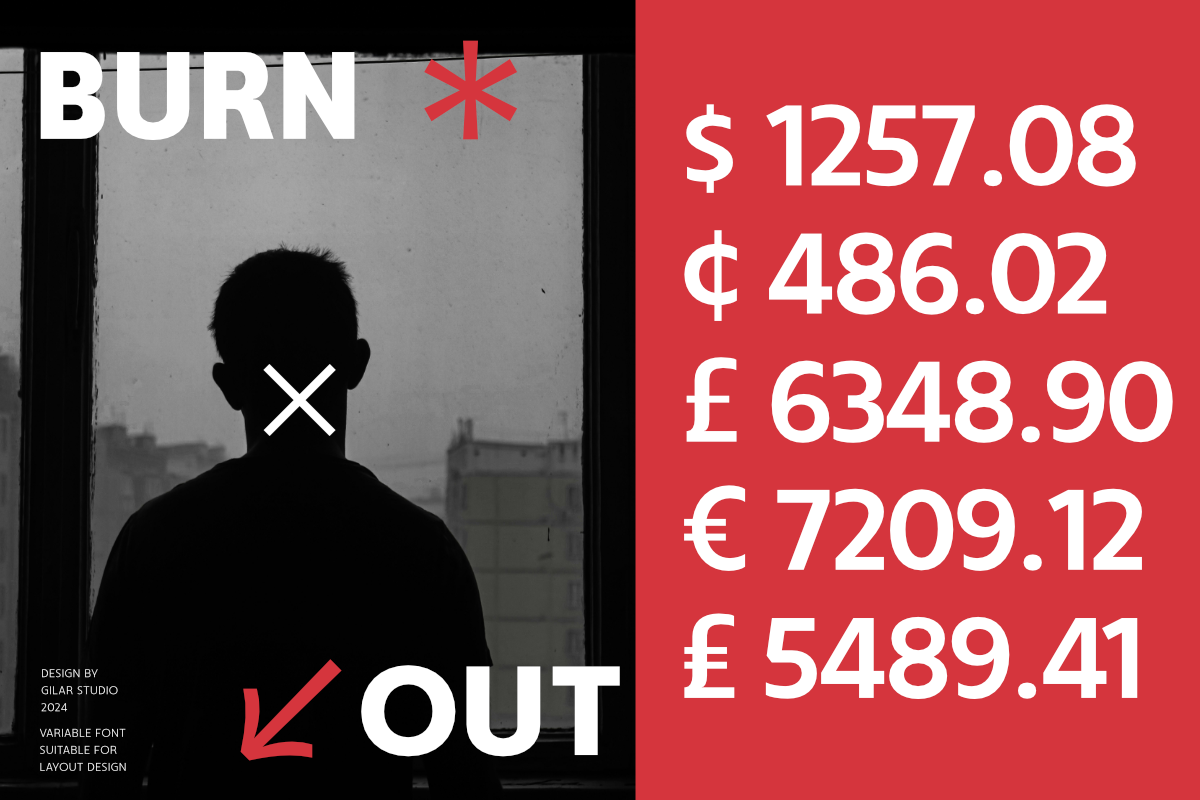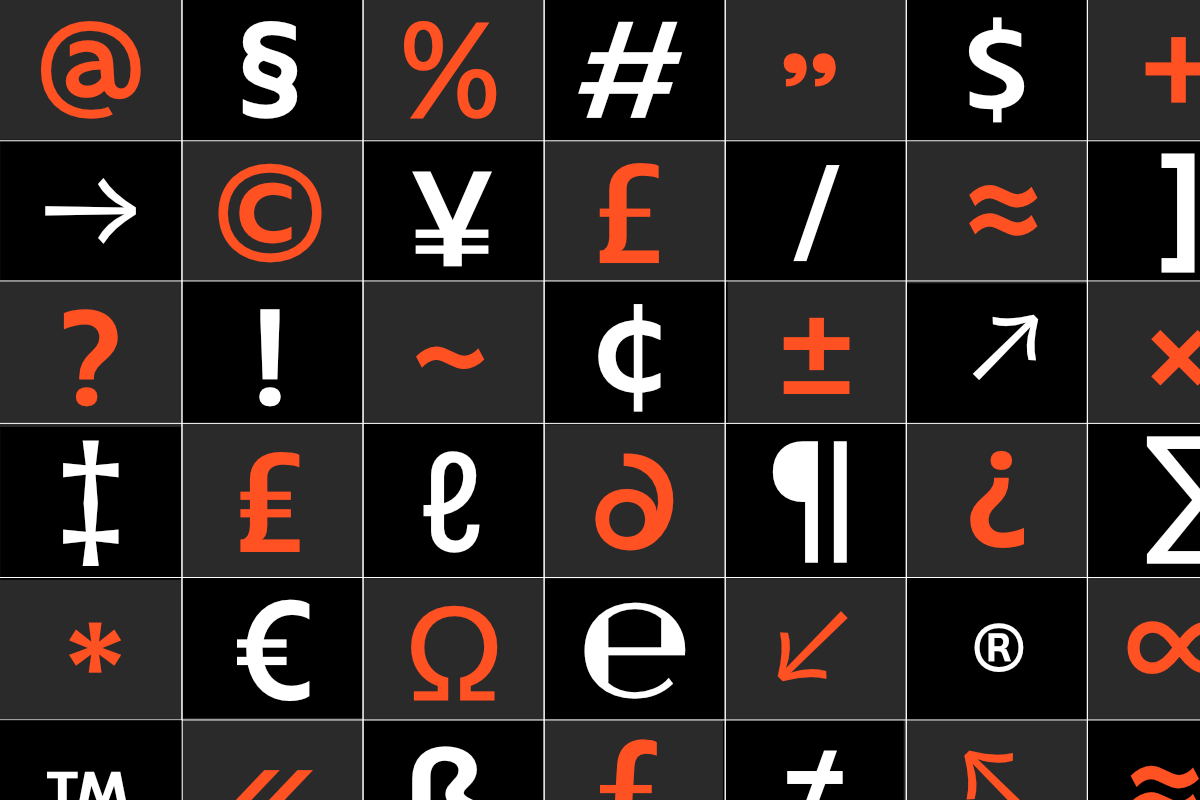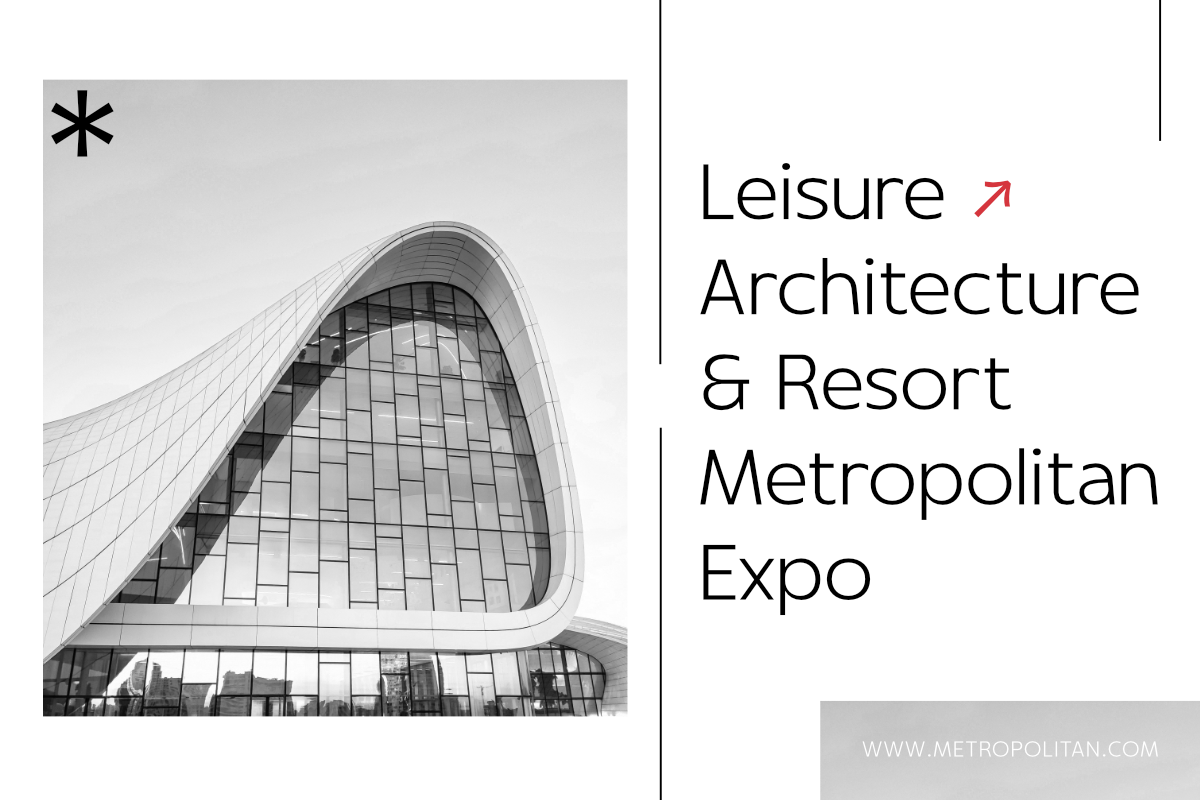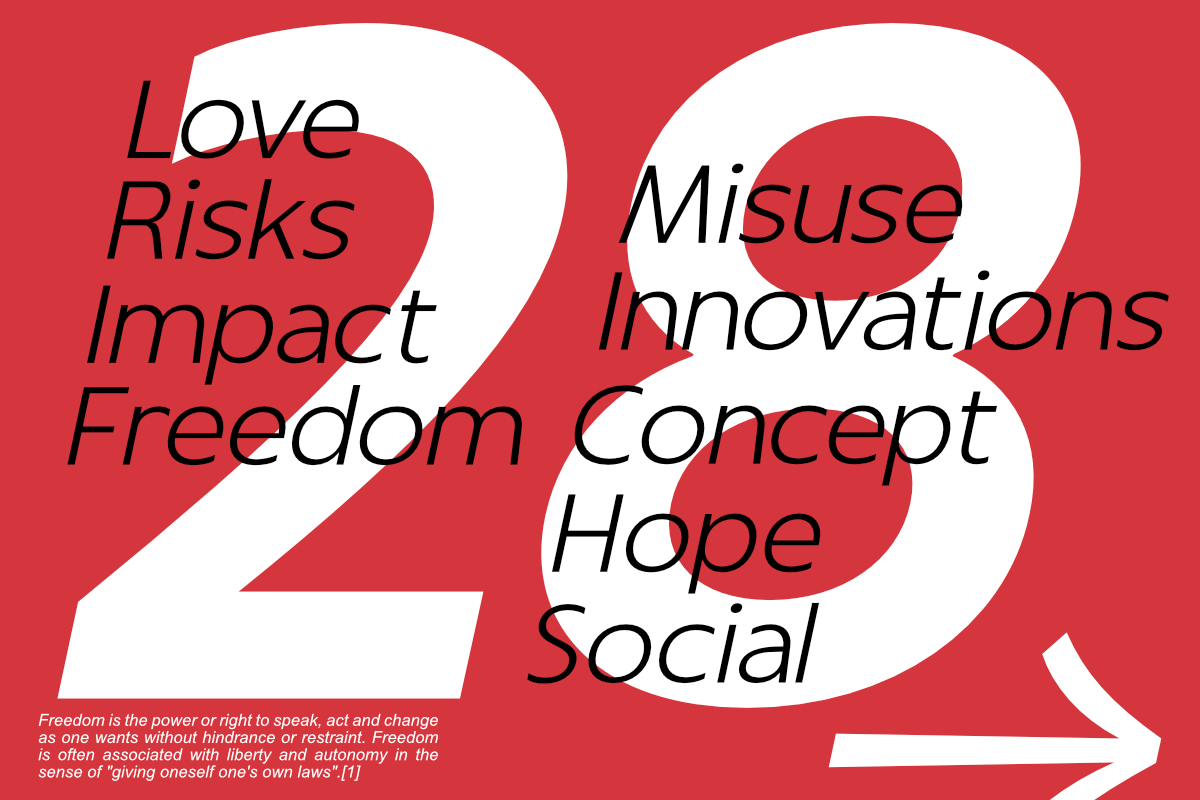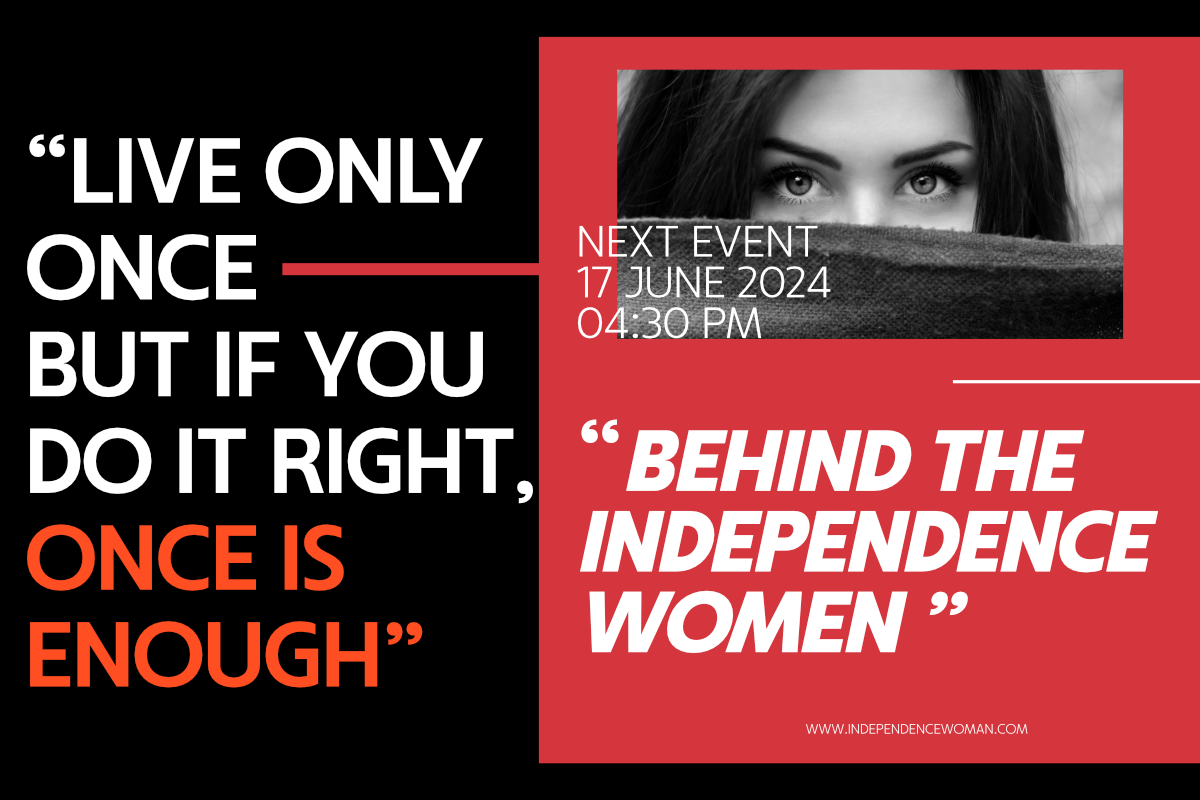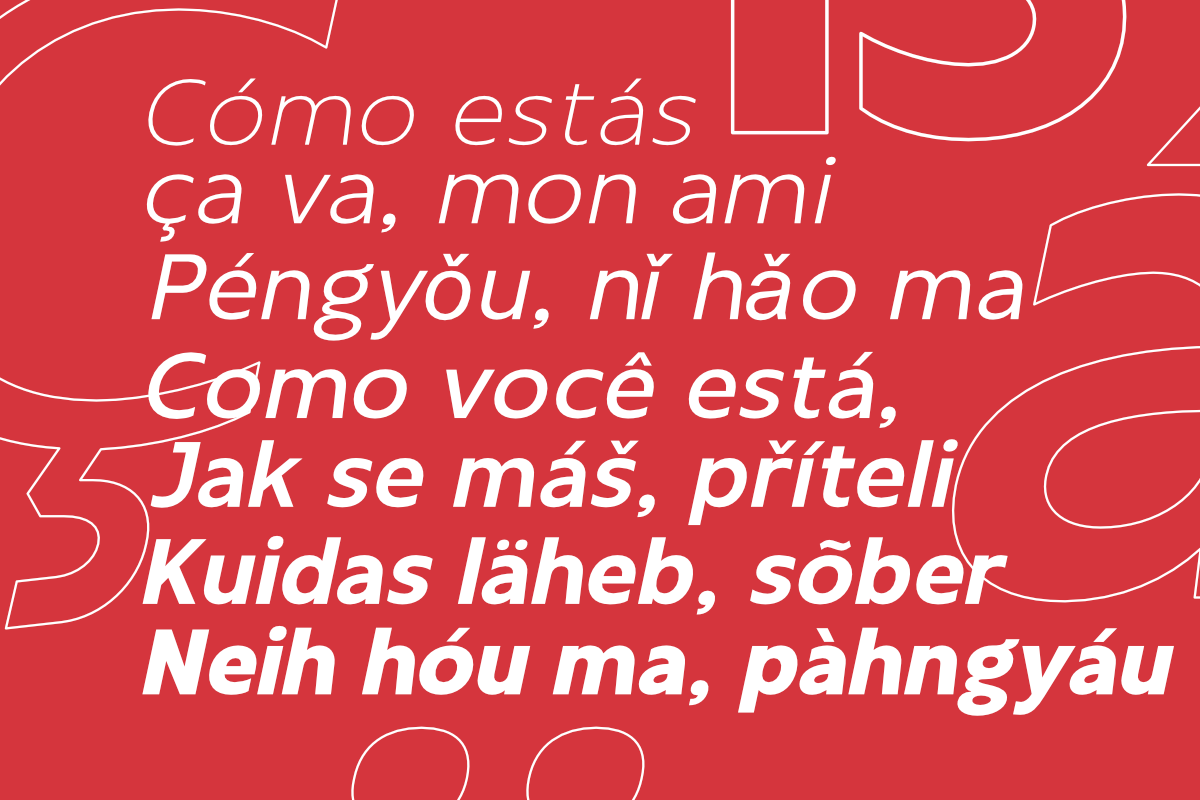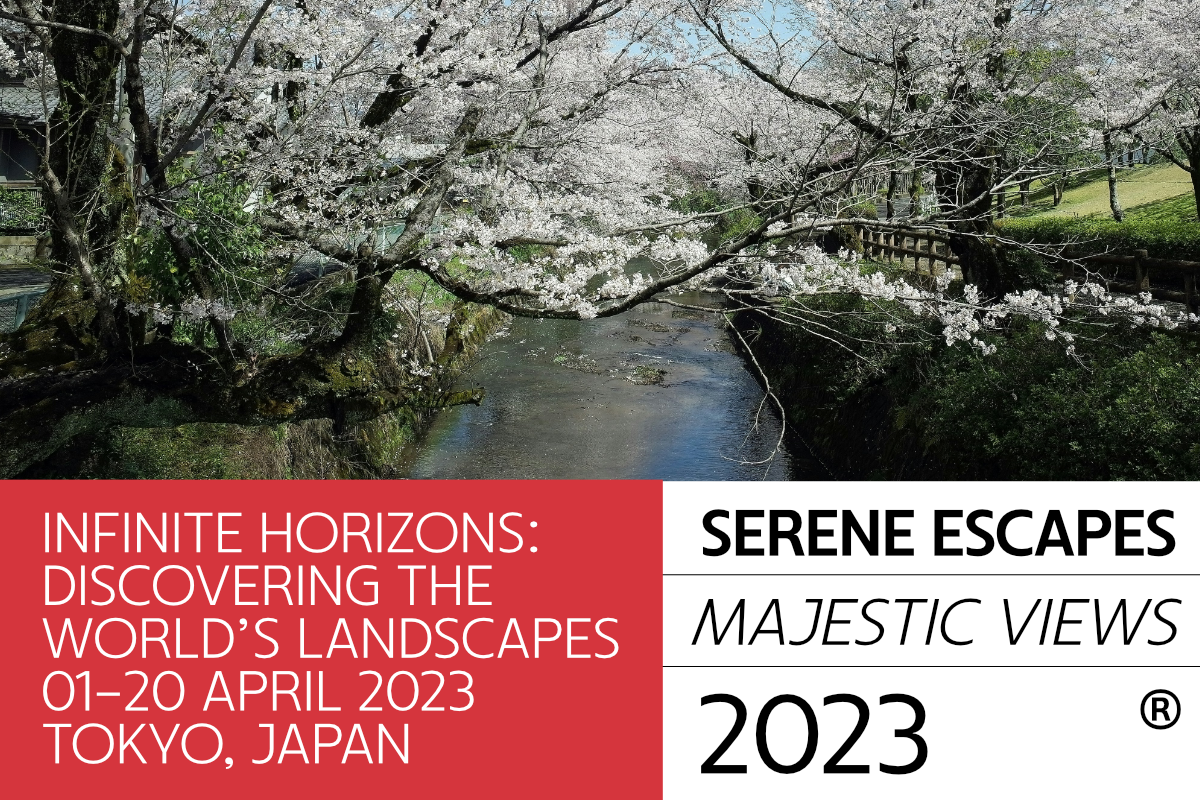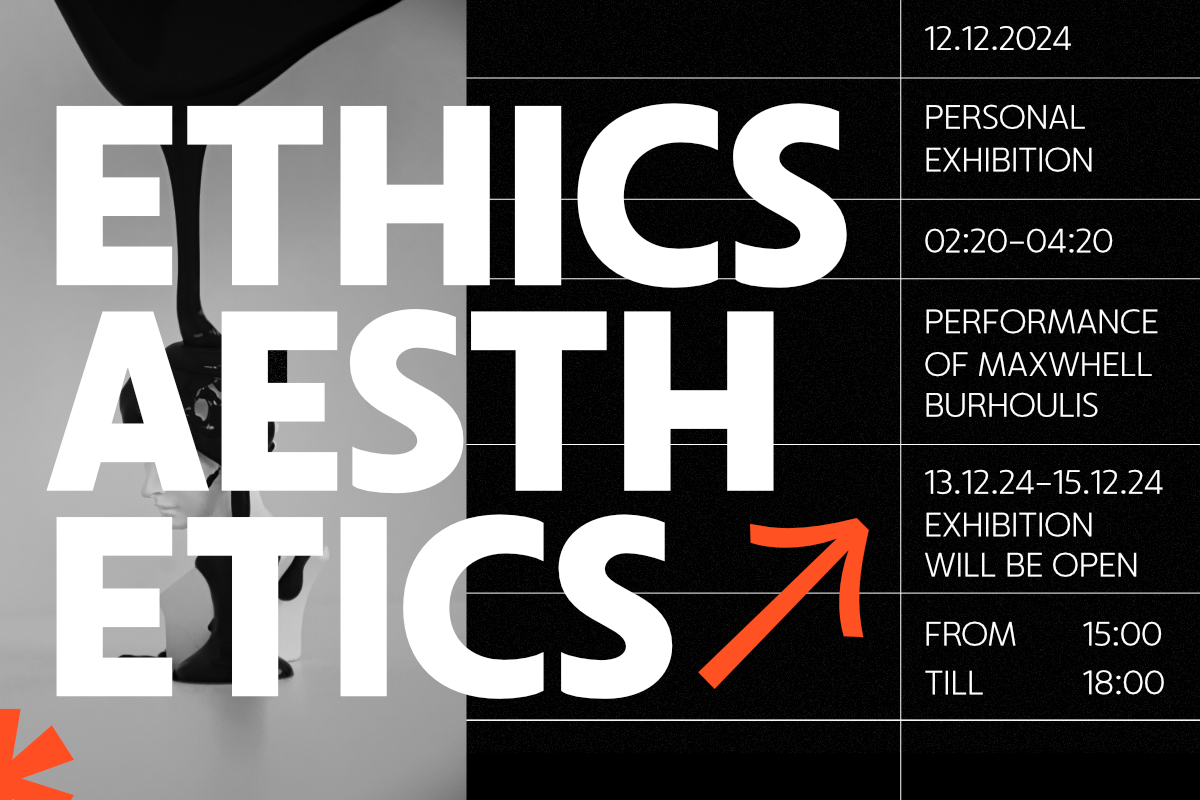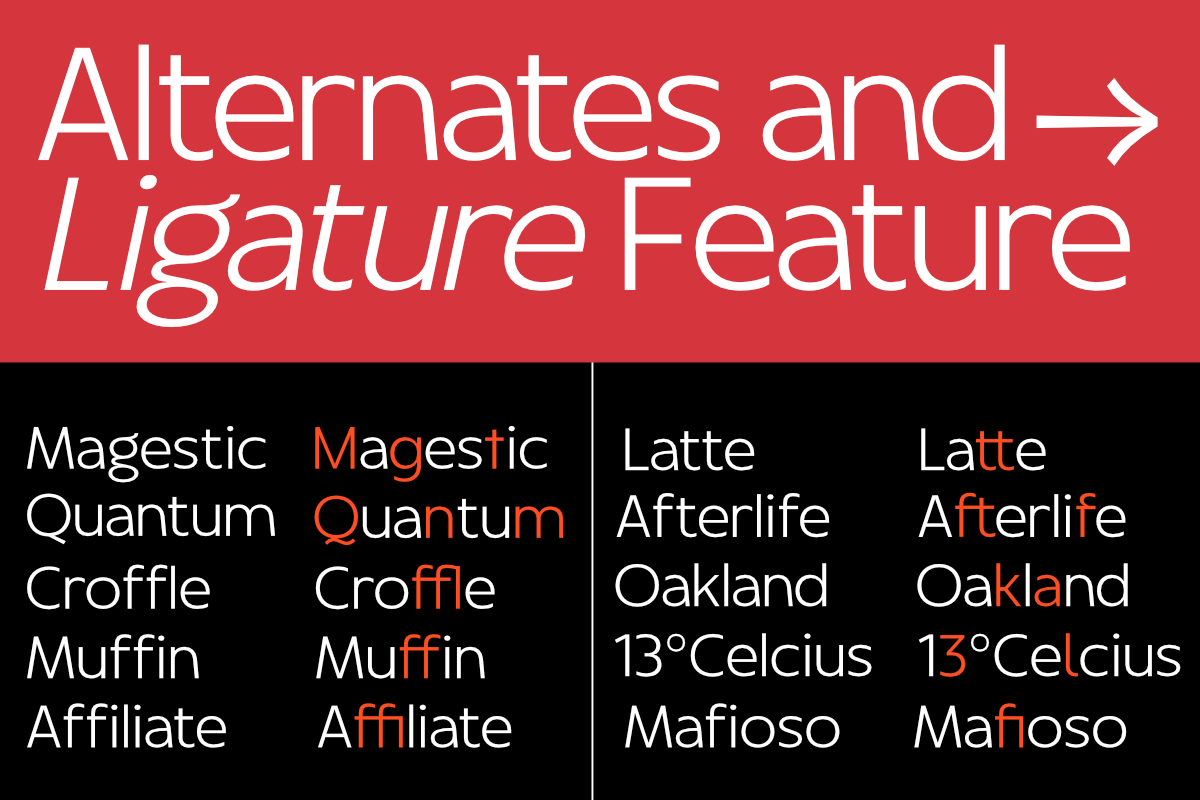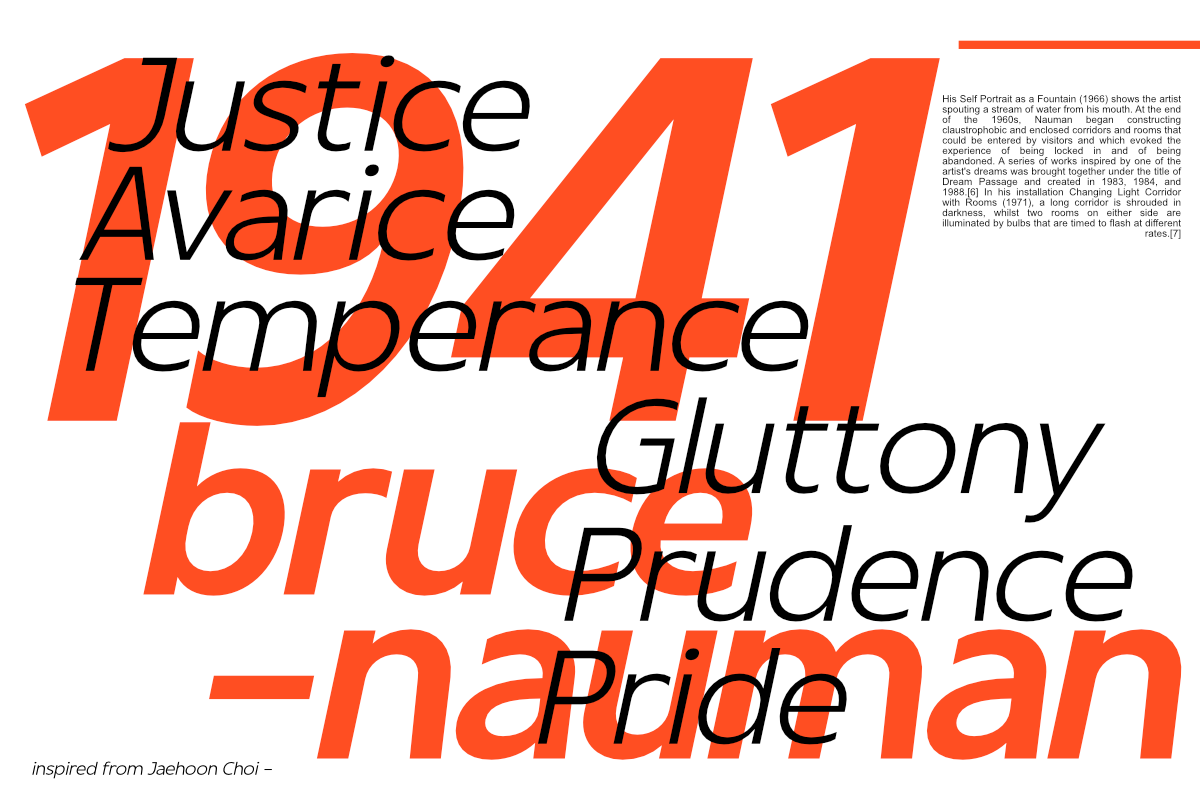
Chigel - Modern sans serif
Chigel is a geometric sans-serif typeface
The typeface emerged from inspiration drawn from historical posters and book titles, which he reinterpreted to meet the demands and aesthetics of modern design. This approach has resulted in a typeface that exudes character, energy, dynamism, distinctive character, between industrial and humanist nuance.
Chigel a geometric sans serif with 14 style consisting of 7 weights ranging from Light to Black with matching Slant. Finds its place in display settings, large headers, and various layout designs. Its adaptability extends to logos, websites, brand identities, product packaging, and even text, making it a valuable asset for web fonts and broad graphic design projects. Chigel is perfect for making a bold statement, seamlessly integrating into creative endeavors.